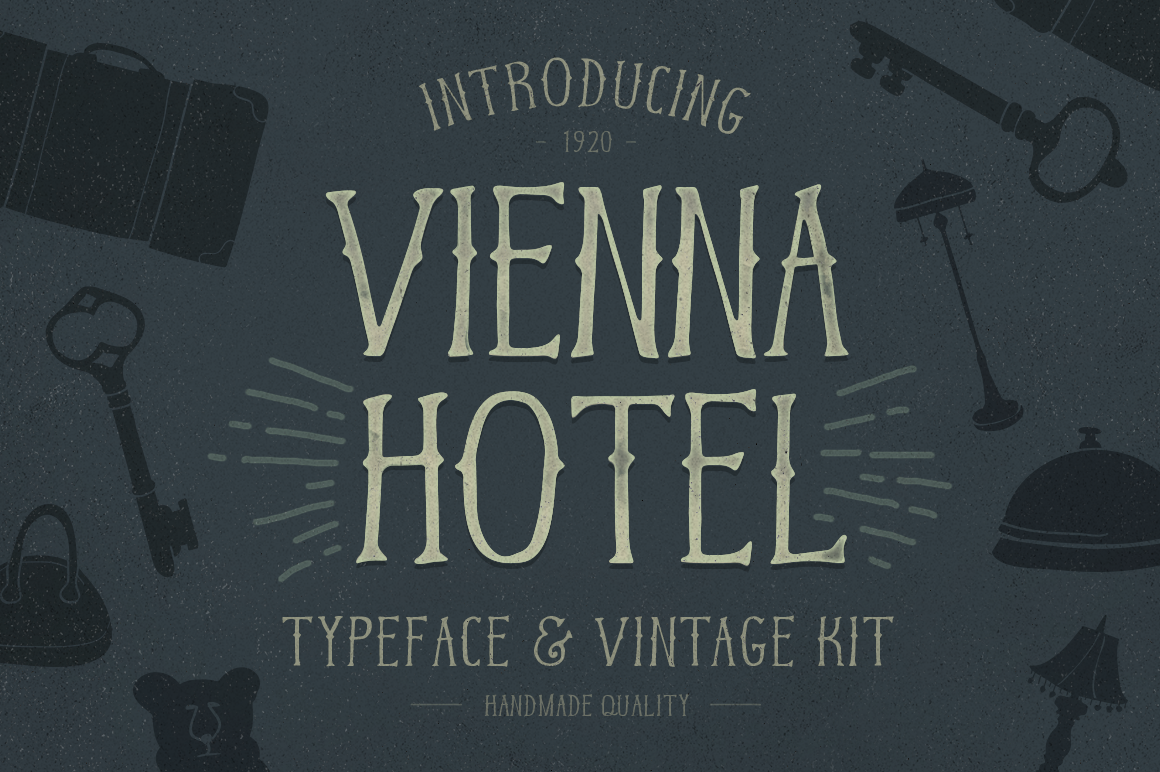
Vienna Hotel – Handmade Typeface
Vienna Hotel is a carefully crafted vintage hand-drawn font which can be used for various purposes such as headings, logos, wedding invitations, t-shirt designs, letterheads, signages, lables, news, posters, badges etc. The font comes in .OTF along with a handmade vector illustration kit.